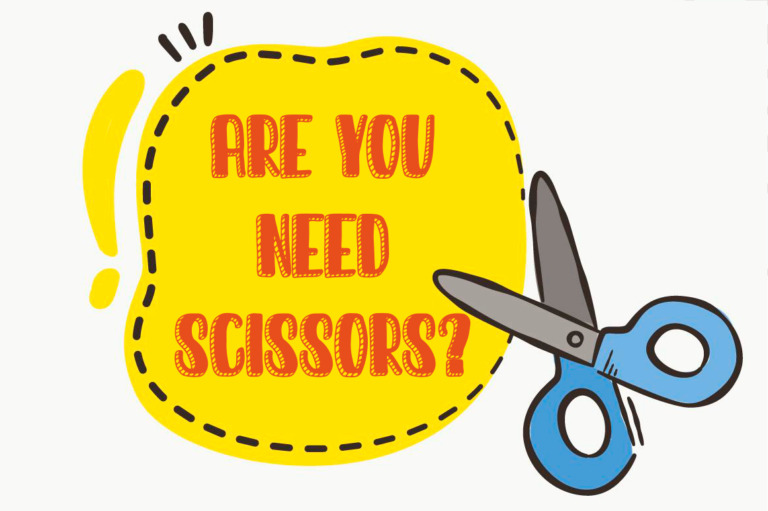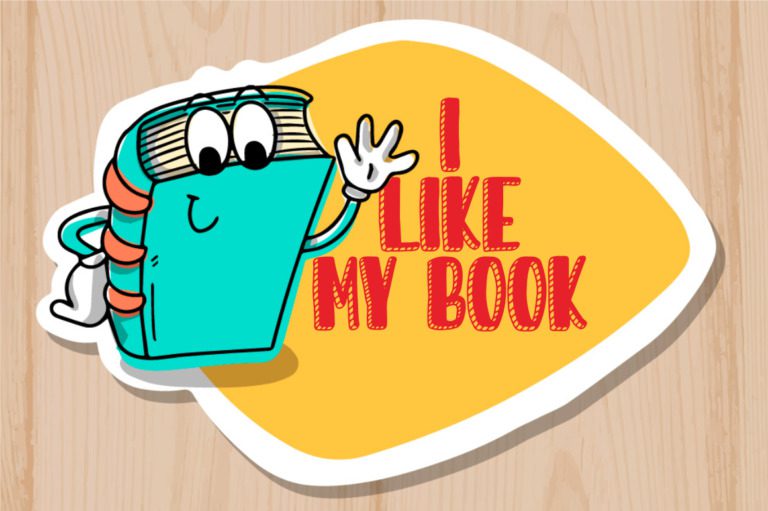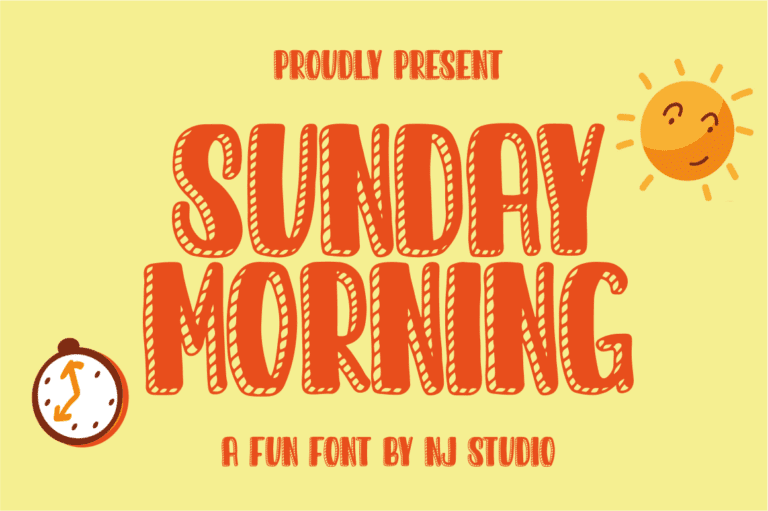
Sunday Morning Font
Sunday Morning is a font characterized by its warm, inviting, and cheerful appearance. It often features rounded, friendly letterforms that evoke a sense of comfort and relaxation. This font is perfect for projects that require a casual, optimistic, and uplifting atmosphere, such as coffee shop menus, greeting cards, and social media posts.